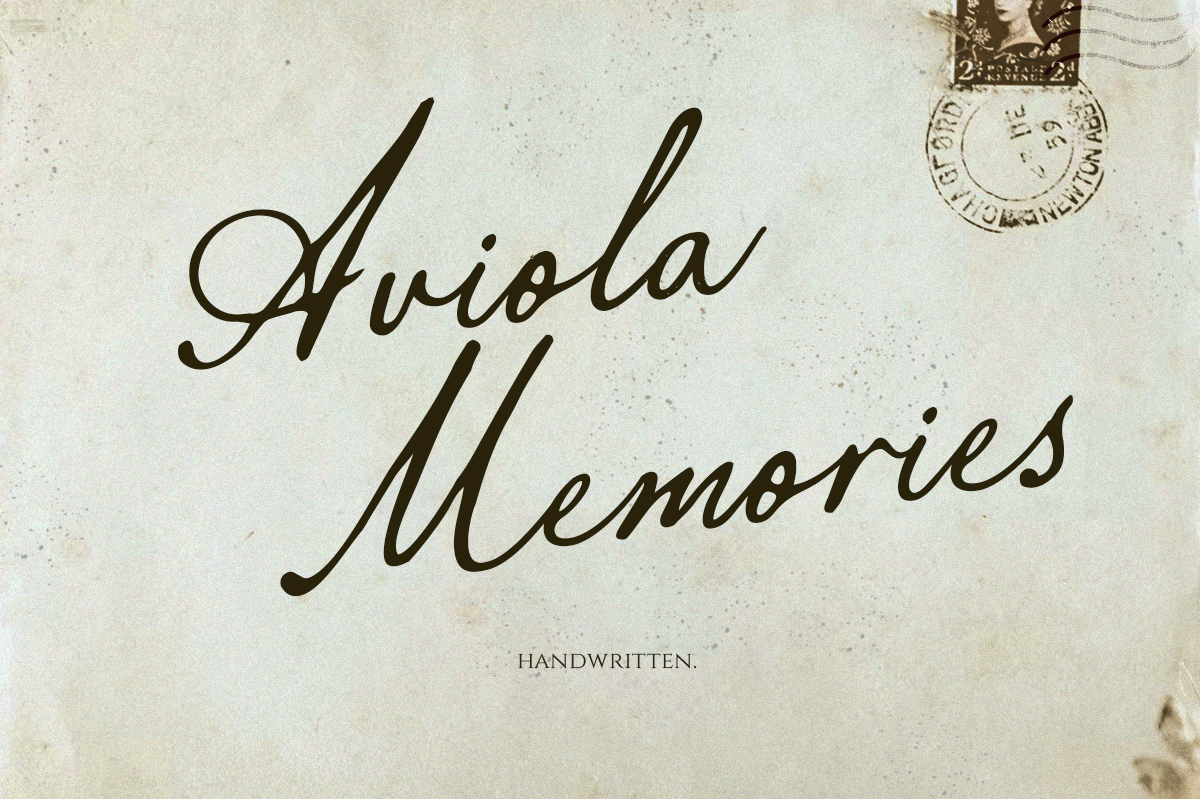
Aviola Memories
Aviola Memories is a beautifully crafted script font that captures the essence of authentic handwriting. Its natural signature style makes it an ideal choice for a wide range of applications, including logos, invitations, and various formal designs. Whether you are creating a sophisticated magazine layout, a stylish wedding card, or elegant packaging, this font adds a touch of elegance and personal flair to your projects.
Designed with versatility in mind, Aviola Memories also functions wonderfully for creative advertising purposes. Its alluring curves and distinctive character lend a refined yet approachable feel, making it suitable for everything from fashion-related designs to stationery and novel covers. Elevate your branding and make a lasting impression with Aviola Memories, the perfect font for those seeking to infuse their designs with warmth and authenticity.